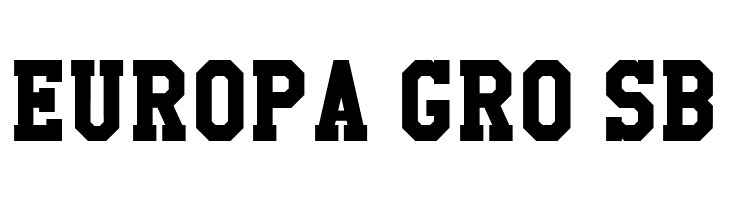
A bold, distressed font with a rugged, vintage style.
A bold, slab serif font with thick serifs and a strong presence.
A bold, angular, and condensed font with a modern, geometric style.
A bold, narrow serif font with strong vertical emphasis and consistent stroke width.
An elegant and decorative font with diamond embellishments and unique numeral styling.
A sleek, condensed italic serif font with sharp serifs and a modern twist.
An elegant serif font with refined curves and subtle stroke contrast.
A geometric, angular font with a modern and bold design.
A classic serif font with elegant strokes and pronounced serifs.
A bold, modern font with clean lines and strong geometric structure.
A bold, modern font with sharp edges and rounded corners for a striking look.
A bold, blocky font with a modern, industrial aesthetic.
A bold, gothic-inspired font with sharp, angular lines and dramatic serifs.
A bold, outlined font with a strong, decorative style.
A bold, angular font with a modern yet traditional aesthetic, ideal for impactful designs.
A bold, high-contrast font with tall, narrow letterforms and sharp angles.
A bold, playful font with an urban, hand-drawn style.
A bold, expanded italic font with a dynamic and modern style.